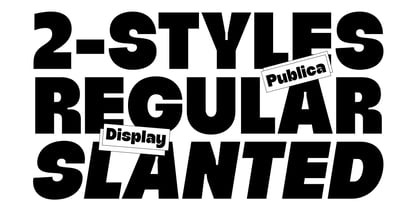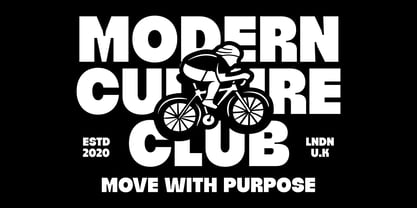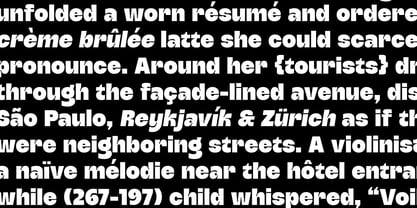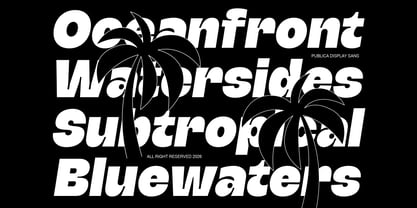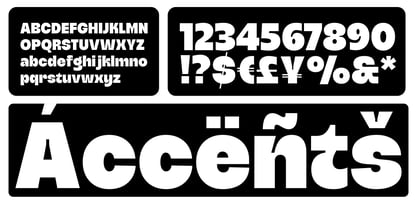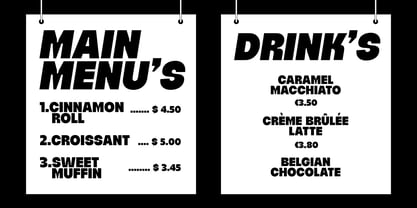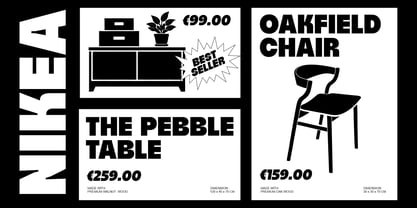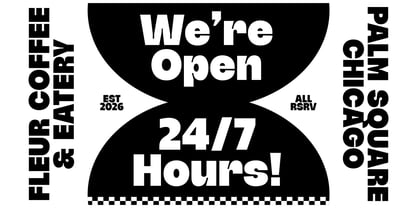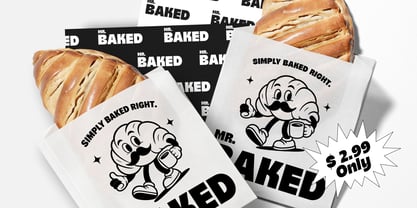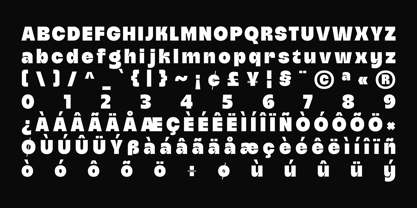
Publice
by Glyphminds Studios
The Publice Font Family was designed by Baliya Ibnu Bi Malkan and published by Glyphminds Studios. Publice contains 2 styles and family package options. More about this family
Publice – Bold Display Typeface
Make your designs impossible to ignore.
Publice is a modern bold display font designed to create strong visual impact while maintaining a clean contemporary appearance.
Available in 2 styles: Regular & Slanted, Publice is perfect for designers, creators, agencies, and brands that want to build memorable visuals with confidence.
Designers: Baliya Ibnu Bi Malkan
Foundry: Glyphminds Studios